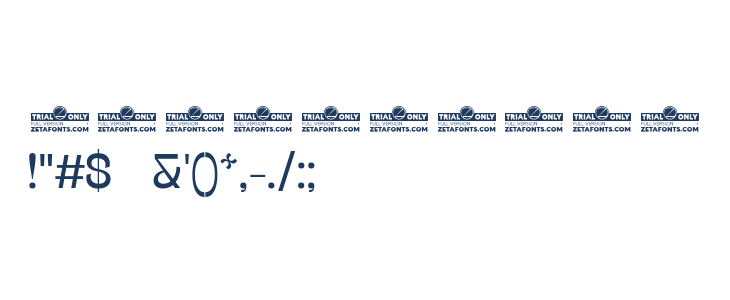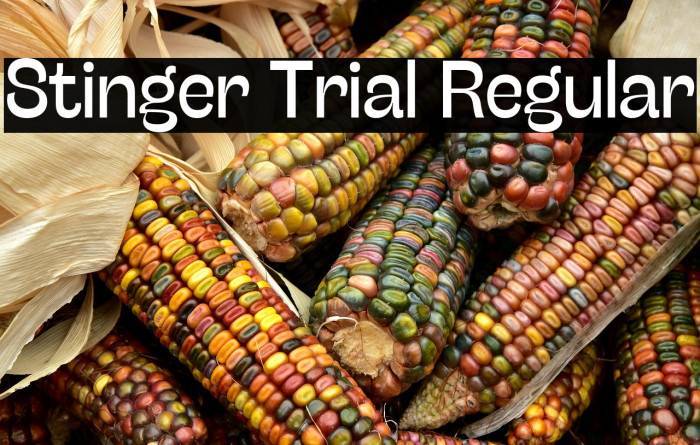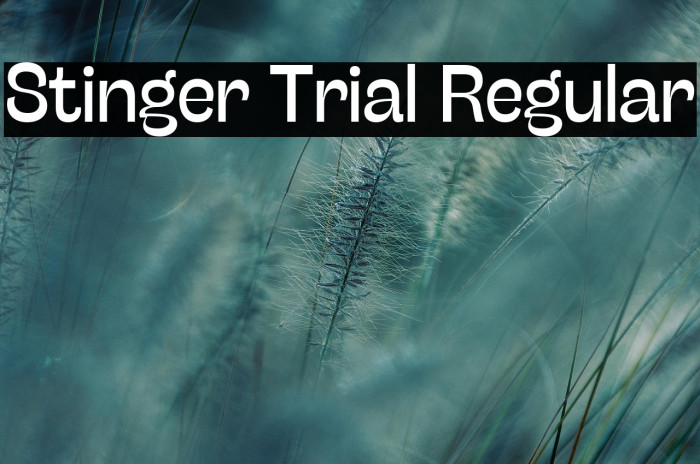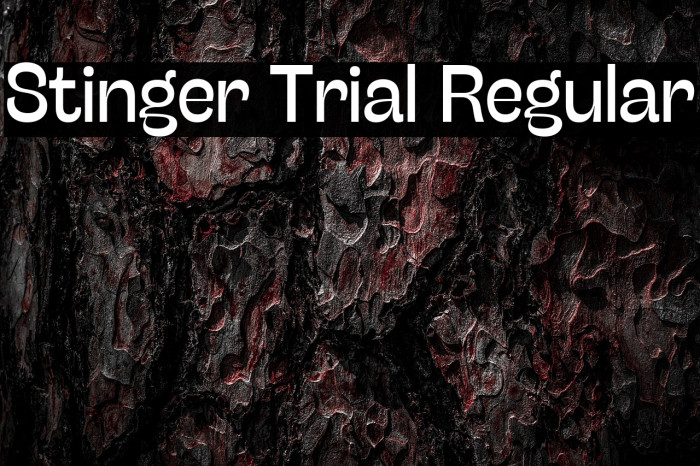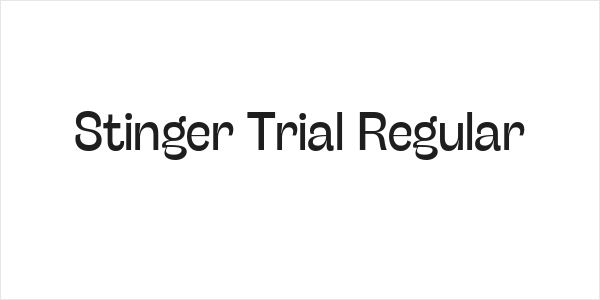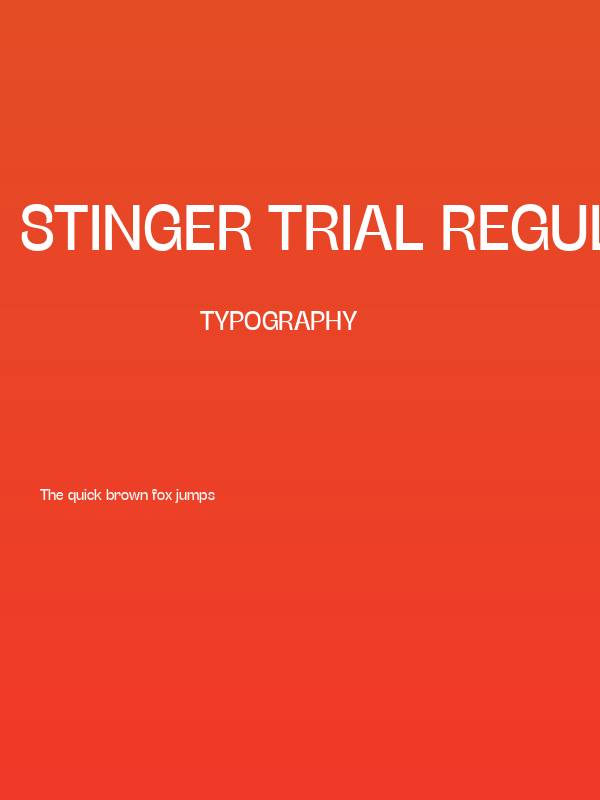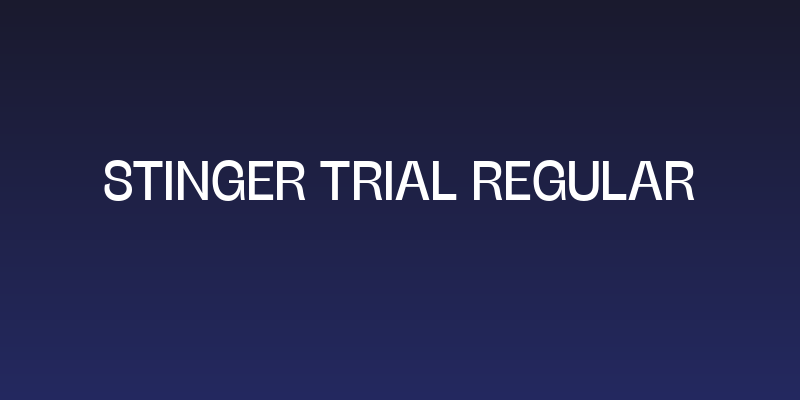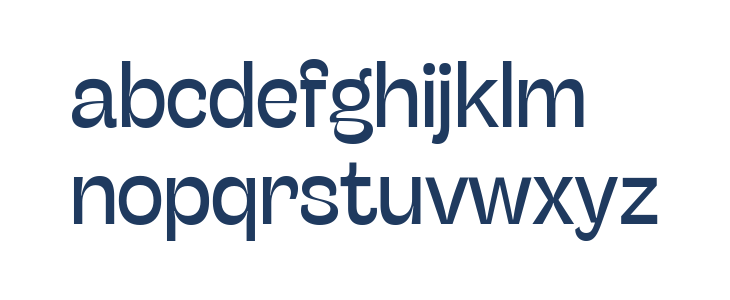
Stinger Trial Regular Font
Stinger Trial Regular Description
This font features a clean and modern sans-serif design with a uniform stroke width, providing a sleek and professional appearance. The characters are well-balanced with a slightly condensed structure, making it suitable for both display and body text. The uppercase letters are bold and assertive, while the lowercase letters maintain a friendly and approachable feel. The numerals and special characters are consistent with the overall style, ensuring readability and versatility across various applications.